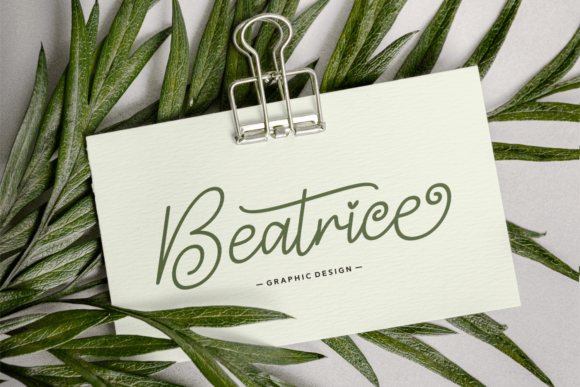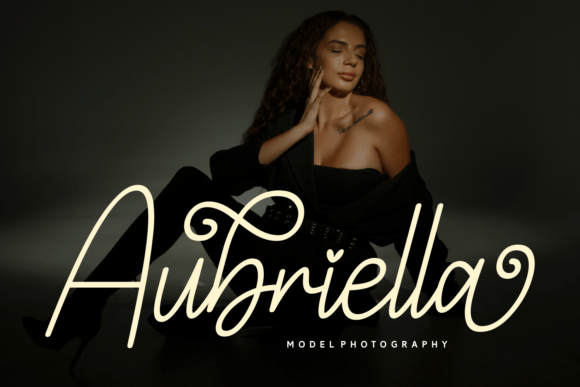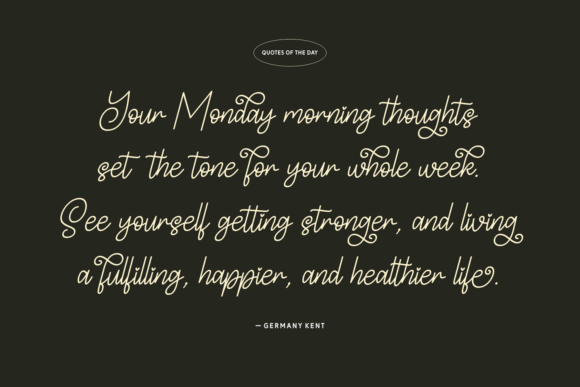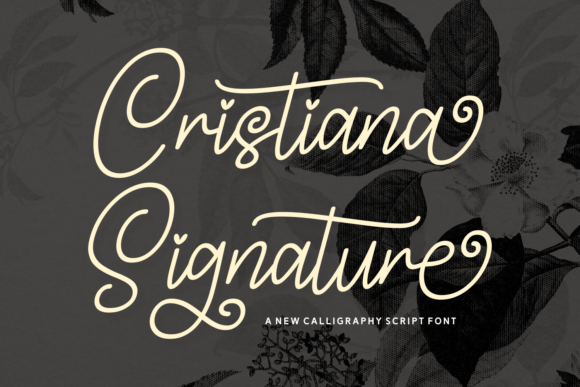
Cristiana Signature Font: Elevate Your Design with Elegance and Sophistication
Are you looking for a font that exudes luxury, sophistication, and refinement? Look no further than Cristiana Signature, an elegant calligraphy script font that is sure to elevate your design projects. With its graceful swirls and heart accents, this stunning font is perfect for creating high-end branding, stylish wedding invitations, or personalized stationery.
The Perfect Blend of Charm and Elegance
Cristiana Signature effortlessly blends charm and elegance to create a truly unique and captivating font. Its refined and sophisticated touch makes it ideal for designers and crafters who want to add a touch of luxury to their work. Whether you’re creating a brand identity, designing wedding invitations, or crafting personalized stationery, Cristiana Signature is the perfect choice.
Key Features of Cristiana Signature Font
- Elegant Calligraphy Script: Cristiana Signature features a beautiful, flowing calligraphy script that is sure to impress.
- Refined and Sophisticated Touch: The font’s refined and sophisticated touch makes it perfect for high-end branding and luxury designs.
- Graceful Swirls and Heart Accents: The font’s graceful swirls and heart accents add a touch of whimsy and romance to your designs.
- Perfect for Luxury Branding: Cristiana Signature is ideal for creating luxurious branding, including logos, business cards, and letterheads.
- Ideal for Wedding Invitations: The font’s elegant and sophisticated touch makes it perfect for designing stylish wedding invitations and stationery.
Design Possibilities with Cristiana Signature
Cristiana Signature is a versatile font that can be used in a variety of design projects. Here are some ideas to get you started:
- Luxury Branding: Use Cristiana Signature to create a luxurious brand identity, including logos, business cards, and letterheads.
- Wedding Invitations: Design stylish and elegant wedding invitations, save-the-date cards, and stationery with Cristiana Signature.
- Personalized Stationery: Create personalized stationery, including notecards, journals, and planners, with Cristiana Signature.
- Packaging Design: Use Cristiana Signature to create luxurious packaging designs for high-end products.
Tips for Using Cristiana Signature Font
Here are some tips for using Cristiana Signature to get the most out of this beautiful font:
- Use it as a Headline Font: Cristiana Signature is perfect for use as a headline font, adding a touch of elegance and sophistication to your designs.
- Pair it with a Sans-Serif Font: Pair Cristiana Signature with a sans-serif font, such as Arial or Helvetica, to create a beautiful contrast.
- Experiment with Font Sizes: Experiment with different font sizes to create visual interest and hierarchy in your designs.
Cristiana Signature is a stunning calligraphy script font that is sure to elevate your design projects. With its elegant and sophisticated touch, graceful swirls, and heart accents, this font is perfect for creating luxurious branding, stylish wedding invitations, or personalized stationery. Whether you’re a designer or crafter, Cristiana Signature is a must-have font in your collection.